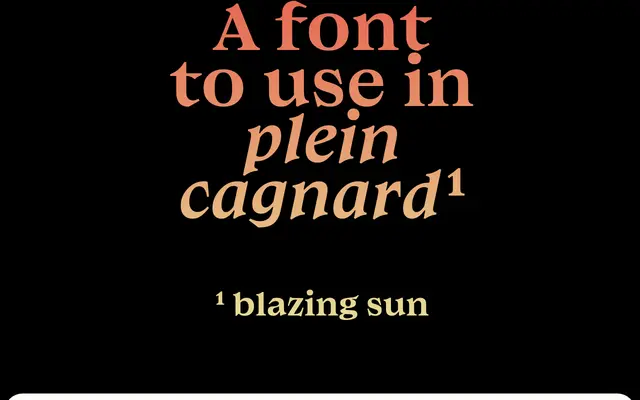
Matorral
A sculpted humanist serif with compact proportions and Mediterranean character, designed by Yoann Minet and originally commissioned for a pottery museum identity.
Originally created as a single weight for the Pottery Museum de La Borne, Matorral borrows specific details from historical sources including the t of Ehmcke Antiqua and the R of Caxton Old Style. Its letterforms are pruned and stocky, evoking arid Mediterranean scrubland rather than lush naturalistic ornament, with thickened stroke endings and moderate contrast suited to sustained text setting. Eight styles across four weights, each with matching italic, make it a capable workhorse that retains a distinctive handmade tension.
Matorral draws on late 19th and early 20th century typeface traditions, with modelled, sculptural letterforms and moderate contrast that place it firmly in the humanist serif camp, referencing sources such as Ehmcke Antiqua and Caxton Old Style.